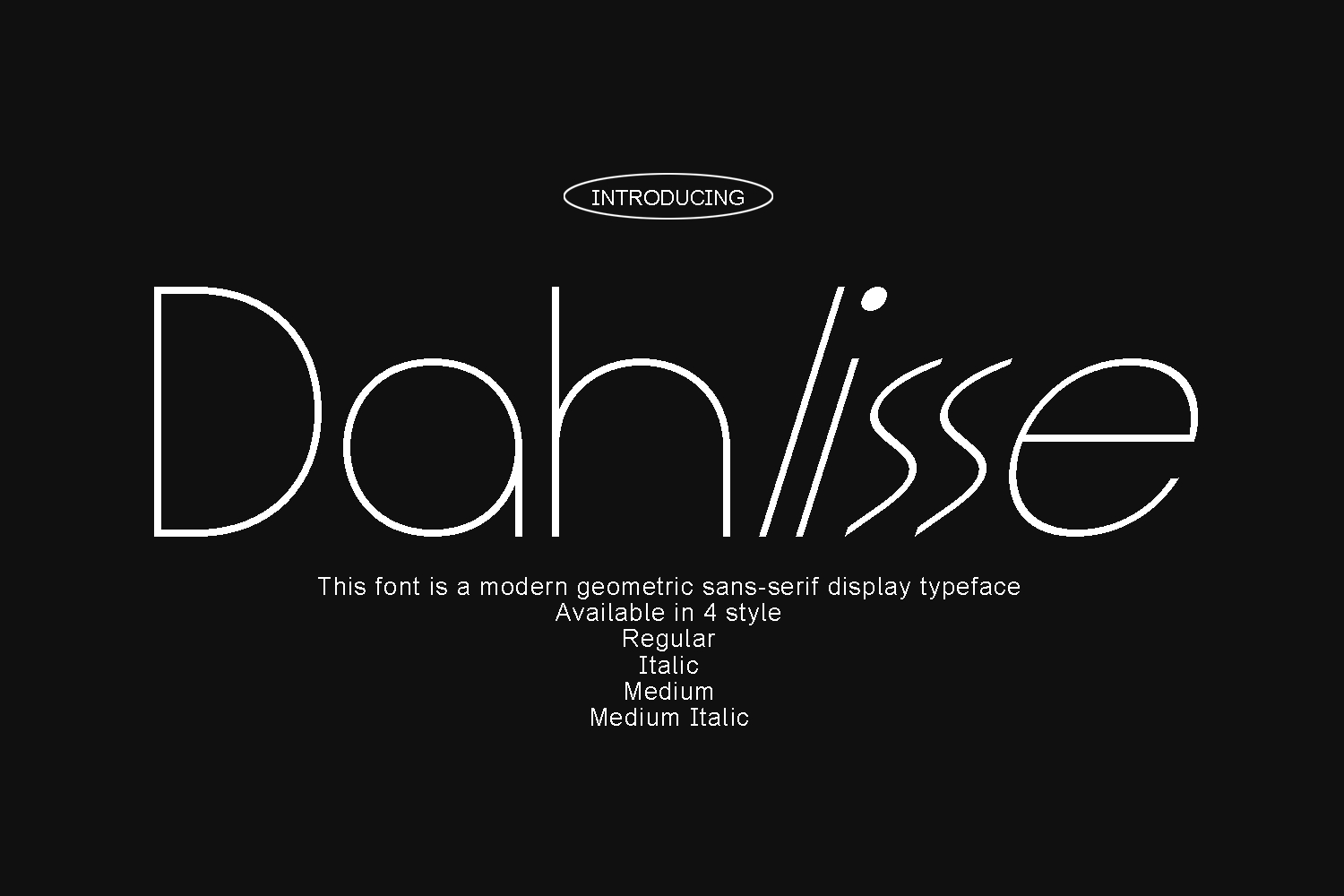
Dahlisse Font
Dahlisse is an ultra-light geometric sans-serif display font featuring monoline strokes, Art Deco-inspired proportions, and minimalist elegance. Ideal for fashion branding, editorial design, luxury packaging, beauty products, and modern visual identities.
This font is a modern geometric sans-serif display typeface characterized by ultra-thin monoline strokes, minimalist construction, and elegant Art Deco influences. The letterforms are built from simple geometric shapes primarily circles, straight lines, and smooth curves creating a clean, sophisticated, and fashionable appearance.